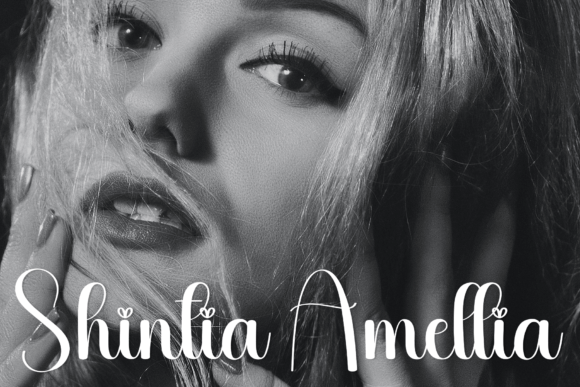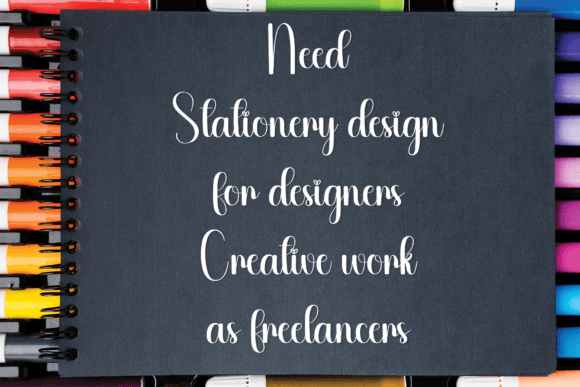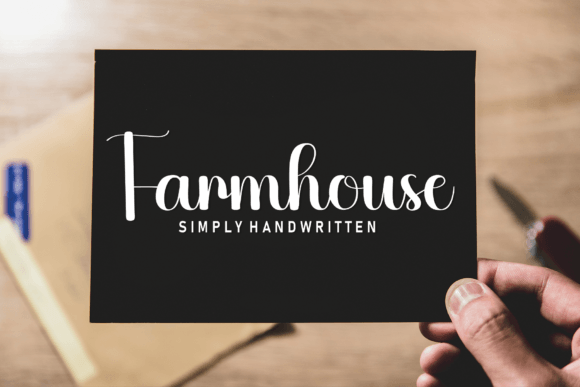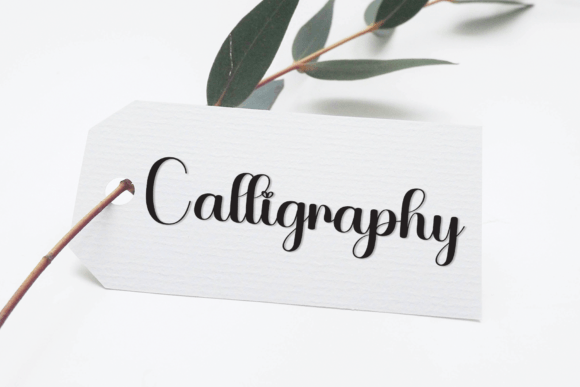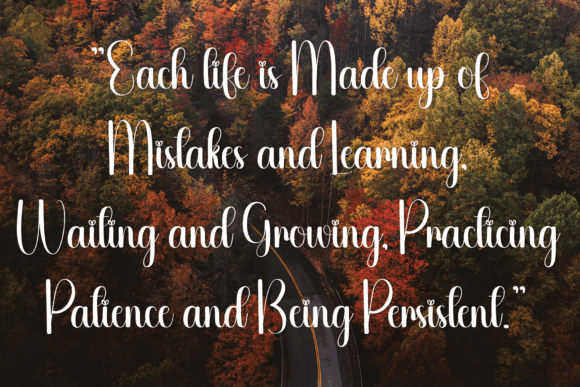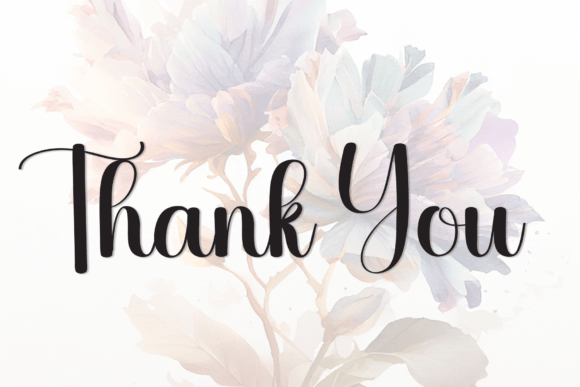
Introducing Garlands Font: The Enchanting Handwritten Script to Elevate Your Designs
In the world of typography, few fonts manage to capture the essence of romance and whimsy as effortlessly as Garlands Font. This enchanting handwritten script font has been making waves in the design community for its versatility, elegance, and the unique touch it brings to any project. Whether you’re working on a greeting card, crafting a headline, or designing an invitation, Garlands Font is your go-to choice for adding that special romantic feel.
The Charm of Garlands Font
Garlands Font stands out with its fluid, cursive strokes that dance across the page, creating a visually appealing rhythm. Its handwritten nature gives it a personal and intimate feel, making it perfect for projects where you want to convey warmth and sincerity. The font’s design is meticulously crafted to ensure that each letter, word, and sentence flows seamlessly into the next, creating a beautiful, cohesive look.
One of the key advantages of Garlands Font is its incredible versatility. It’s a script font that can adapt to a wide range of applications. Here are a few ways you can use Garlands Font to elevate your designs:
- Greeting Cards: Add a touch of elegance and romance to your greeting cards, making them stand out for birthdays, anniversaries, weddings, and more.
- Headlines and Titles: Use Garlands Font to create stunning headlines and titles for your blog posts, articles, or social media content, grabbing the attention of your audience instantly.
- Invitations and Announcements: Whether it’s a wedding invitation, a baby shower announcement, or a graduation party invite, Garlands Font can add that extra layer of charm and sophistication.
- Branding and Packaging: For businesses looking to add a personal touch to their branding or packaging, Garlands Font offers a unique and stylish solution.
Why Choose Garlands Font?
With so many fonts available, why should Garlands Font be your choice? Here are a few compelling reasons:
- Romantic Appeal: In an era of digital communication, Garlands Font offers a refreshing way to add a romantic and personal touch to your messages.
- Readability: Despite its elegant and cursive nature, Garlands Font is surprisingly readable, making it suitable for both short phrases and longer texts.
- Uniqueness: Garlands Font brings a unique style to the table, setting your designs apart from the generic and often overused fonts.
- Easy to Use: Garlands Font is easy to integrate into your projects, compatible with various design software, making it a convenient choice for designers and crafters.
Tips for Using Garlands Font Effectively
To make the most out of Garlands Font, consider the following tips:
- Pair with Simplicity: Let Garlands Font be the star of your show by pairing it with simpler fonts for body text or secondary elements.
- Experiment with Colors: While Garlands Font looks stunning in traditional black or blue, don’t be afraid to experiment with colors that match your brand or project’s theme.
- Adjust Size and Spacing: Play around with the size and spacing of Garlands Font to create visual hierarchy and emphasize certain parts of your text.
Garlands Font is more than just a font; it’s a design element that can transform your projects with its enchanting and romantic appeal. Its versatility, readability, and unique style make it an invaluable asset for designers and crafters looking to add a personal touch to their work. Whether you’re aiming to create memorable greeting cards, captivating headlines, or beautiful invitations, Garlands Font is your key to unlocking a world of elegance and charm. So, why wait? Dive into the world of Garlands Font today and let your designs speak with a touch of romance and whimsy.